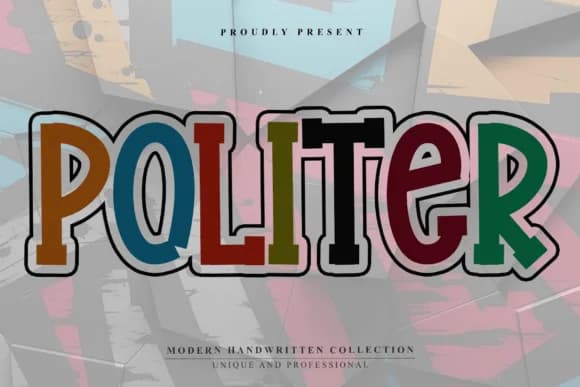
You're designing a custom sticker collection for a boutique kids' brand, and what you really need is type that reads as hand-drawn while delivering genuine visual punch without feeling cartoonish or cheap. Politer, the chunky slab serif from Plafont store, is designed for exactly this kind of moment. Its construction is intentional and bold: thick black outlines frame rounded, confident letterforms that pair perfectly with sturdy blocky serifs, all combining to create a graffiti-inspired character that catches the eye without ever feeling forced or overly trendy.
This typeface thrives wherever playful type needs to work with real purpose. Sticker packs and vinyl cutting projects feel right at home, as do children's product graphics, greeting card suites, podcast cover layouts, and album artwork. Indie toy branding, product label design, gift wrap graphics, merchandise printing, and even straightforward social media assets all read with noticeably more impact when set in Politer's weight. The typeface shines at large display sizes, where the chunky letterforms stop registering as heavy and instead deliver genuine personality and visual presence. Even when printed smaller, each letter maintains solid legibility without compromising its distinctive character.
- Sturdy, Confident, Handwritten Font
Politer Font is a slab serif font that shines as a display or heading face. Pair it with a clean sans-serif or serif font for body text β the contrast creates a clear hierarchy while the two styles stay balanced and easy to read.